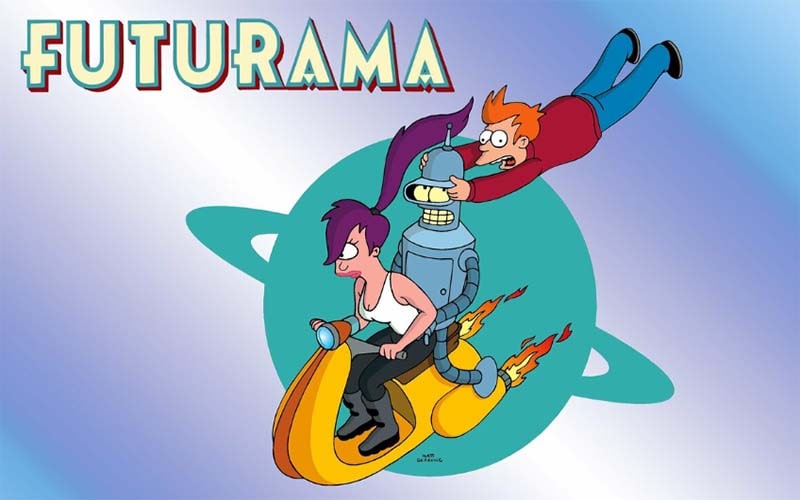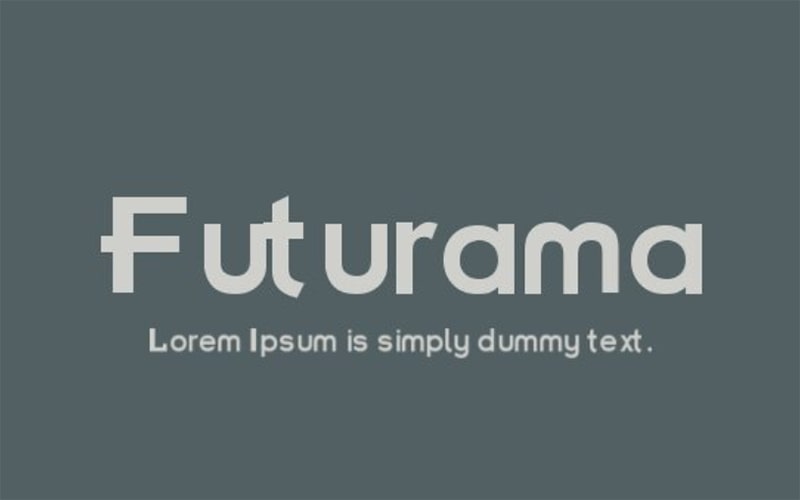
Futurama is a high-quality Various, Fancy, and Sans-Serif typeface that is the great creation of German designer Paul Renner & High-Logic – Erwin Denissen and developed by Darrell Johnson in 1999.
This font is used in the title sequence of Futurama, which is an animated science fiction sitcom that first aired in 1999. Futurama feature’s title the arched name in red outlined with a yellow line.
This font series is the story of a pizza delivery boy, who after being frozen for one thousand years, finds he working at the Planet Express in the 31st century.
This font is being designed by taking inspiration from the sketches made by Renner. Some designs of this typeface are also considered as the Classic serif typeface and this works well.
Futurama Regular font family is available in a single weight that comes with 62 defined characters and 62 unique glyph counts in number. The font contains 66 Basic Latin characters from the Unicode character ranges.
This fancy typeface has four unique styles that include Futurama Bold, Futurama Title, Futurama Fal1, and Futurama Fal2. This font comes with great readability and makes the designs much more attractive.